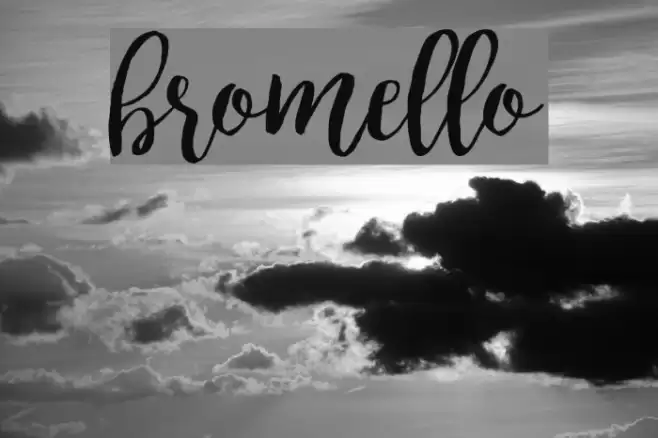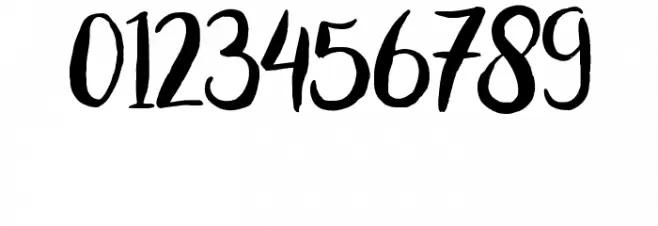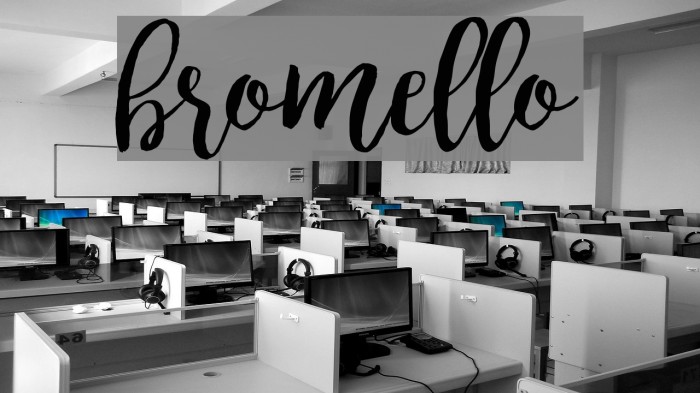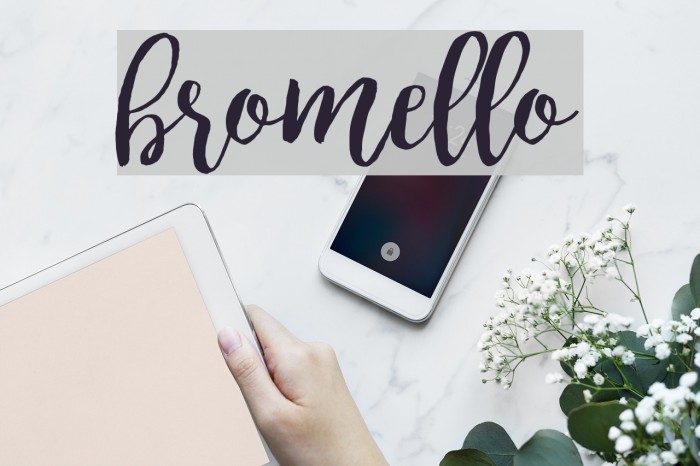
bromello Font
bromello Description
This font features a flowing, handwritten style with a modern and artistic flair. The characters are elegantly crafted with a smooth, cursive appearance, showcasing a dynamic and lively personality. The uppercase letters are bold and prominent, while the lowercase letters maintain a consistent fluidity, enhancing the overall aesthetic. The numbers are equally expressive, maintaining the same artistic strokes as the letters. This font is perfect for adding a personal touch to any design, making it ideal for creative projects that require a unique and stylish look.
A modern, handwritten script font with a flowing, artistic style from Handwritten fonts.
- Proposed Projects: Ideal for wedding invitations, greeting cards, branding, and social media graphics.
- Use Case: Logos, Headlines, Decorative text